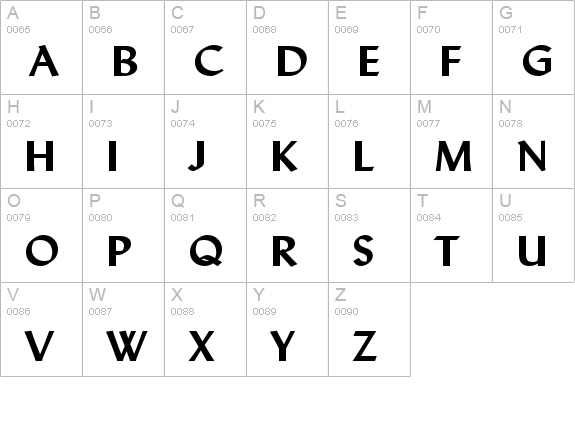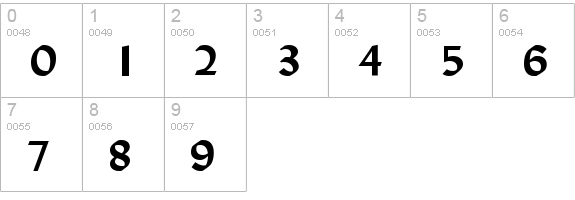
Lynda Wide Bold is a strong, high-contrast, extended-width variant in the Lynda typeface family \xE2\x80\x94 well suited to headlines, attention-grabbing titles, and strong calls-to-action.
Introducing Lynda Wide Bold font, a striking and versatile typeface designed to make a bold statement in your designs. With its wide and commanding presence, this font is perfect for headlines, titles, posters, and any project that requires a strong visual impact. The thick, bold strokes of Lynda Wide Bold exude confidence and modernity, ensuring that your message will be noticed and remembered. The best part? Lynda Wide Bold font is freely available to download at FontsMarket.com, allowing you to effortlessly elevate your design projects without breaking the bank. Whether you're a seasoned designer looking for a fresh font to add to your collection or a newcomer seeking a powerful tool to enhance your work, Lynda Wide Bold font delivers the perfect balance of style and accessibility. Download it today and let your creativity shine with this exceptional typeface.